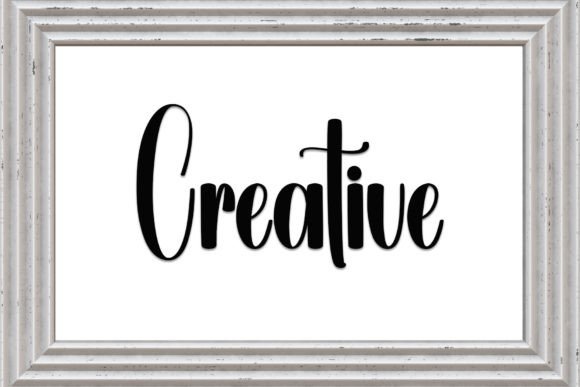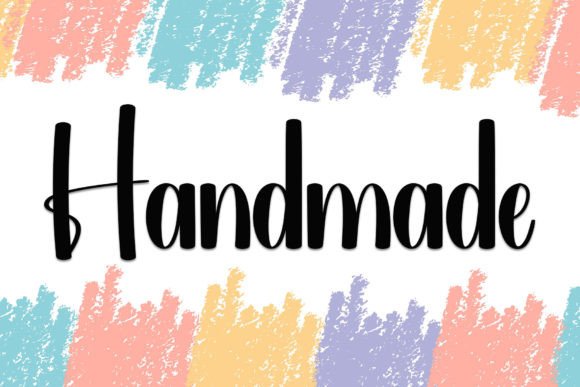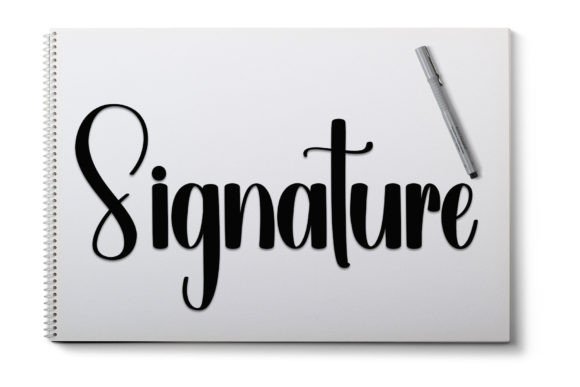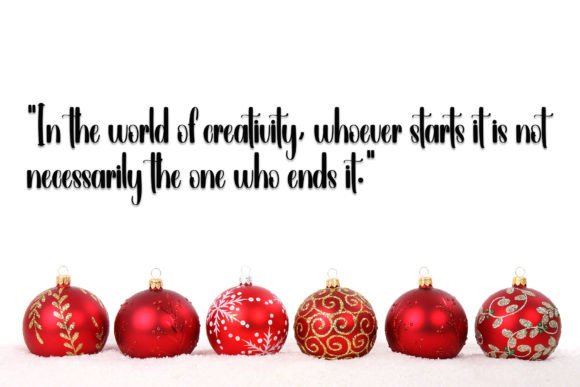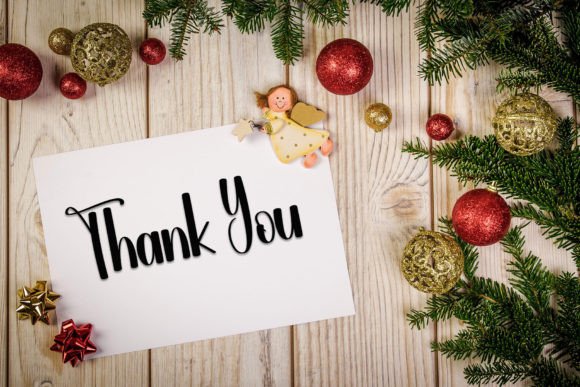
Introducing Brush Strokes Font: Elevate Your Designs with Elegance and Class
In the world of typography, a well-crafted font can make all the difference in transforming a design from ordinary to extraordinary. For designers and crafters seeking to infuse their projects with a touch of sophistication and timeless charm, Brush Strokes Font is an exceptional choice. This trendy handwritten font boasts a contemporary atmosphere and impeccable form, drawing inspiration from classic calligraphy to bring an air of elegance and class to any design.
The Essence of Brush Strokes Font
Brush Strokes Font is more than just a typeface; it’s a design statement. Its roots in traditional calligraphy are evident, yet it carries a modern flair that sets it apart from more conventional fonts. This unique blend makes it versatile enough to be used across various design projects, from branding and advertising to packaging and digital media.
Key Features of Brush Strokes Font
• Handwritten Elegance: Brush Strokes Font captures the fluidity and expressiveness of handwritten calligraphy, providing a personal touch that digital fonts often lack.
• Contemporary Twist: While rooted in classic calligraphy, this font has been carefully crafted to feel contemporary and relevant, making it perfect for designs that require a modern edge.
• Versatility: Its impeccable form ensures that it remains legible and impactful across different sizes and applications, from signage to social media graphics.
• Elegance and Class: The font’s design exudes a sense of luxury and sophistication, making it an excellent choice for projects that aim to convey high-end quality or premium branding.
Applications of Brush Strokes Font
The versatility of Brush Strokes Font makes it suitable for a wide range of design projects. Here are some of the most impactful ways to use this elegant typeface:
• Branding and Logotypes: Create a lasting impression with a logo that combines modernity with classic sophistication.
• Wedding and Event Design: Add a touch of elegance to wedding invitations, programs, and event branding.
• Packaging Design: Elevate product packaging with a font that communicates luxury and quality.
• Digital Media: Use Brush Strokes Font in social media graphics, blog headers, and website designs to add a personal and sophisticated touch.
Tips for Using Brush Strokes Font Effectively
To maximize the impact of Brush Strokes Font in your designs, consider the following tips:
• Pair with Simplicity: Let the font be the focal point by pairing it with simpler design elements.
• Experiment with Colors: While the font itself conveys elegance, experimenting with color can add another layer of depth to your design.
• Play with Sizes: Utilize different font sizes to create visual hierarchy and emphasize key messages.
Brush Strokes Font offers designers and crafters a unique opportunity to infuse their projects with elegance, class, and a contemporary edge. Its inspiration from timeless classic calligraphy, combined with its modern design, makes it a versatile and impactful choice for a wide range of applications. Whether you’re working on branding, packaging, digital media, or any other design project, Brush Strokes Font is sure to elevate your work and leave a lasting impression.